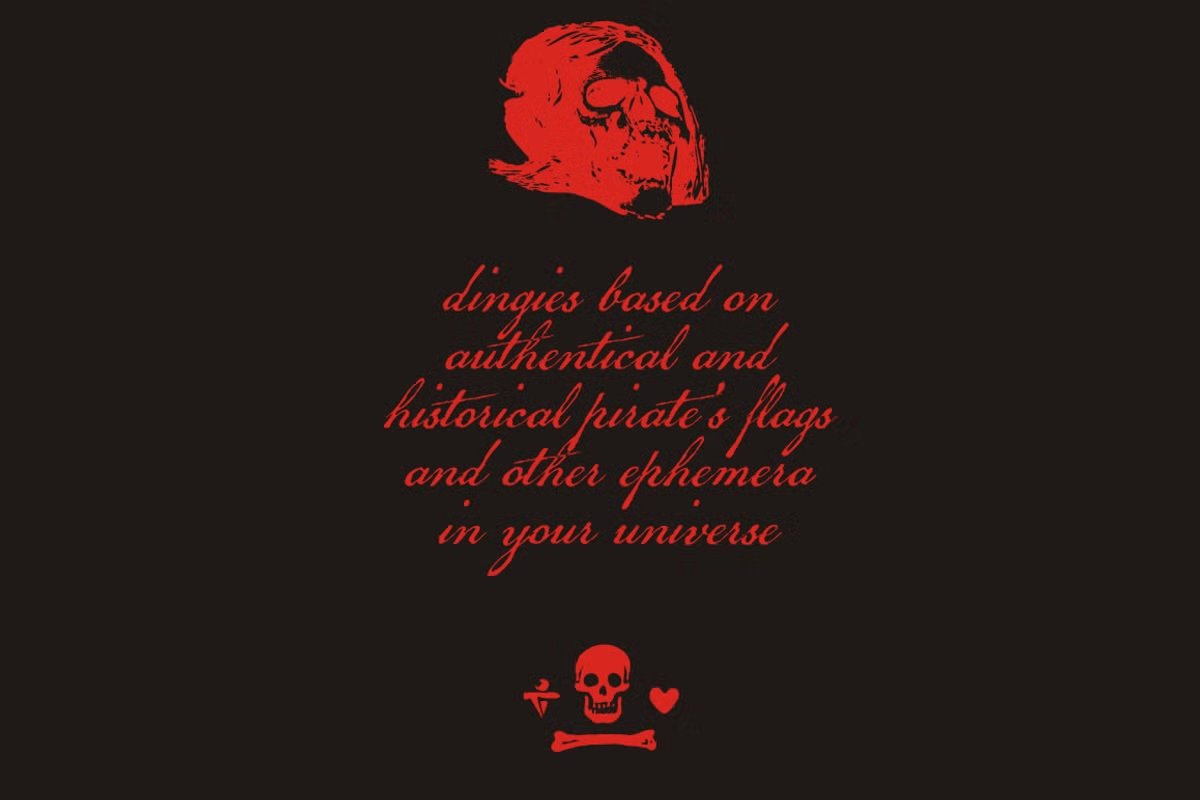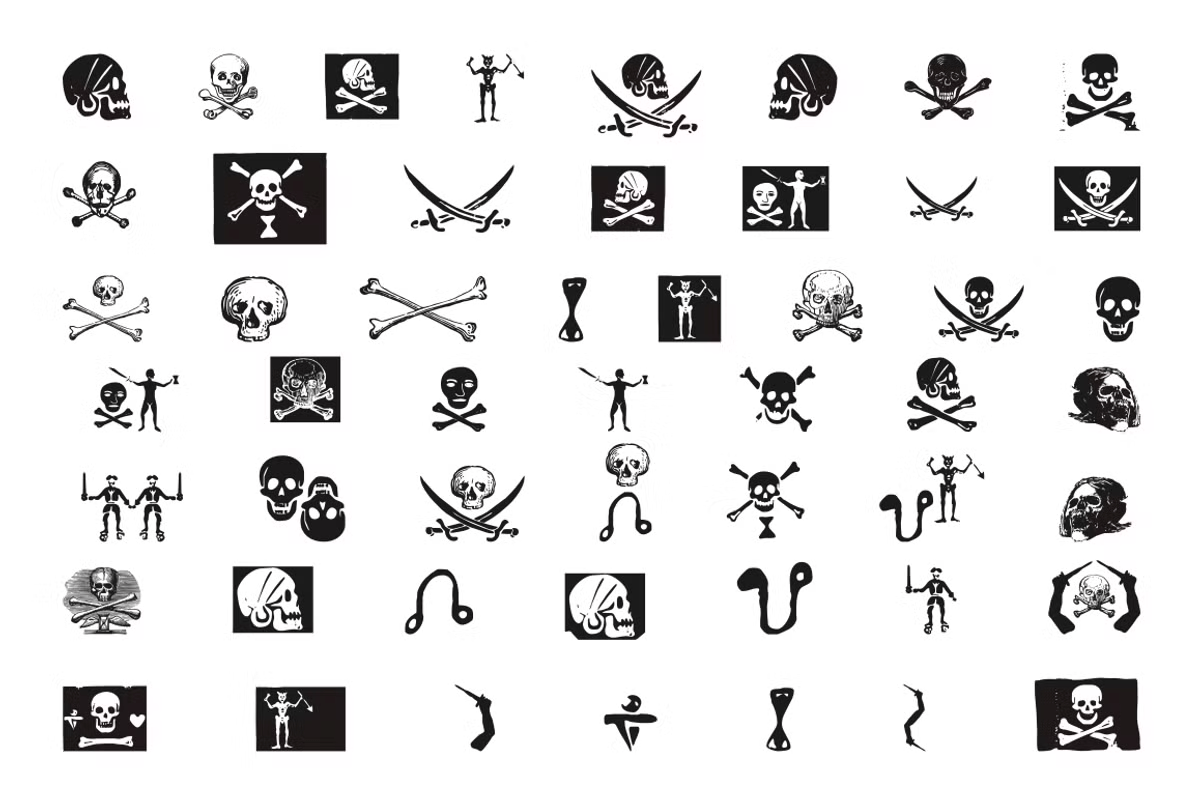
Pirates Deluxe
About Pirates Deluxe
A collection of pirate drawings in font format. A great set of type dingbats in the genre of pirates, thieves, death and other vicious creatures of the high seas. Dingbats based on authentical and historical pirate’s flags and other devices in your…